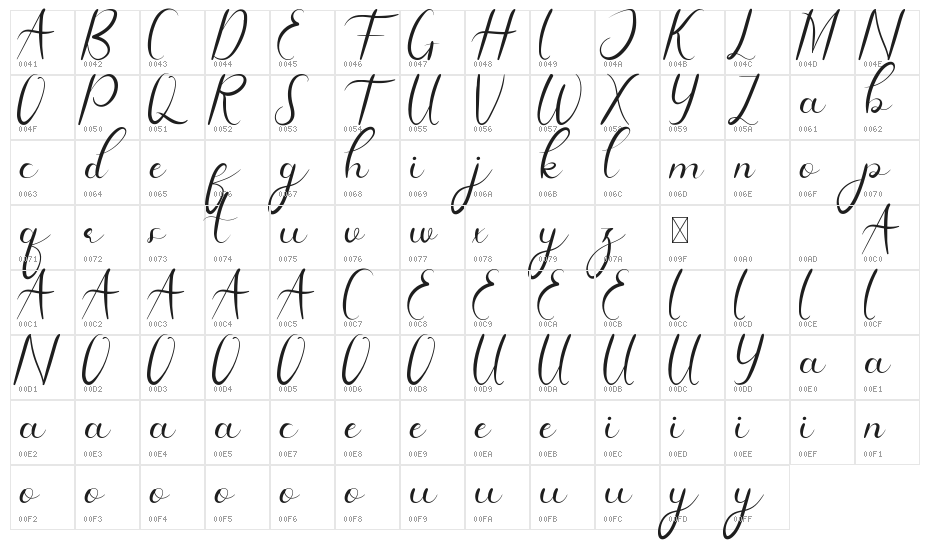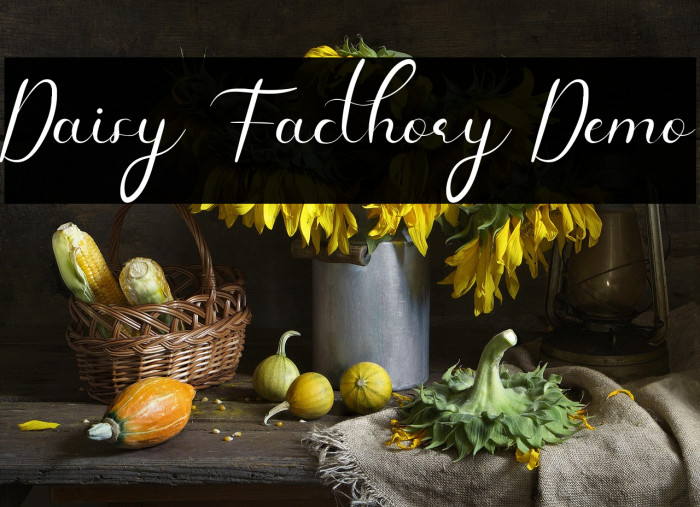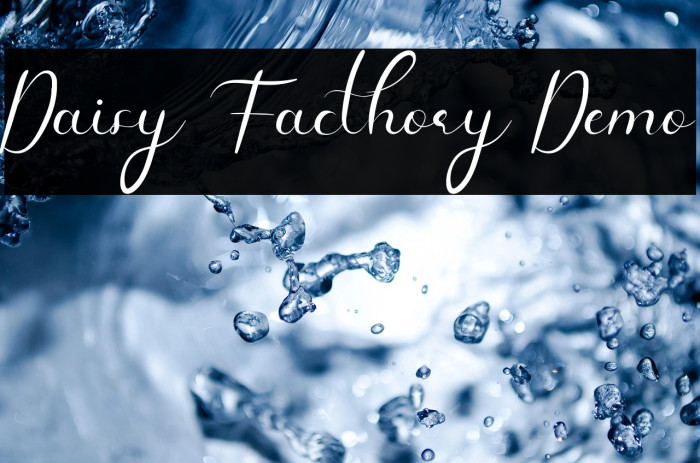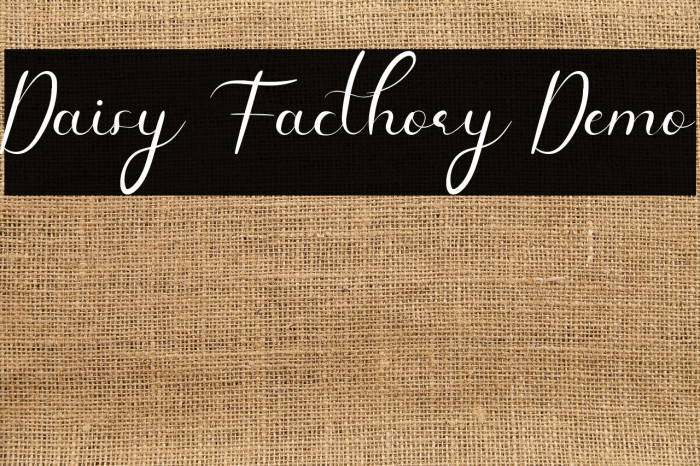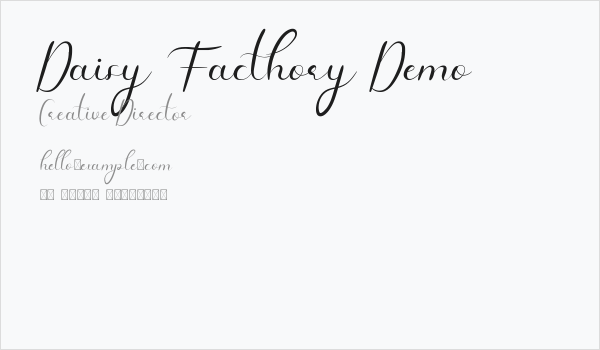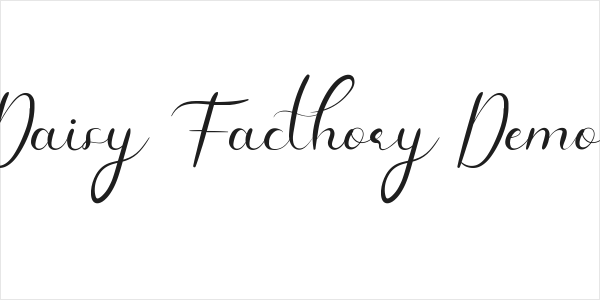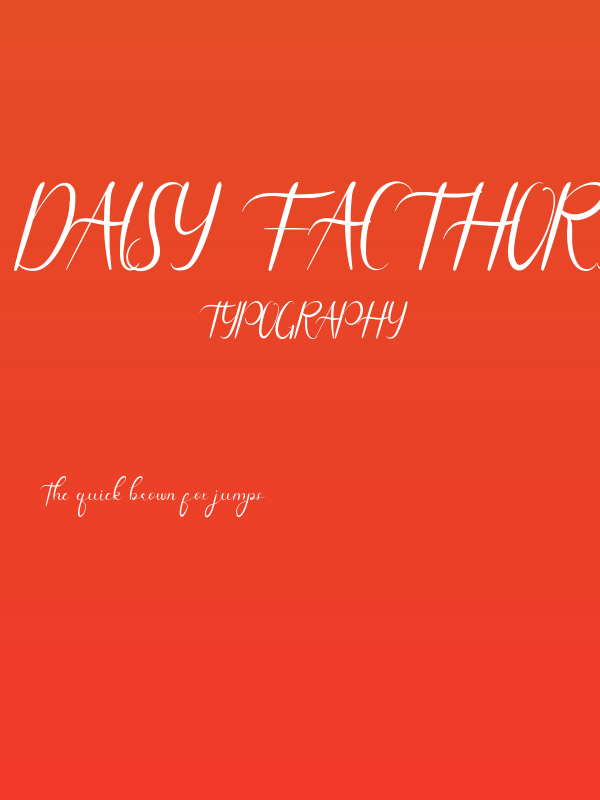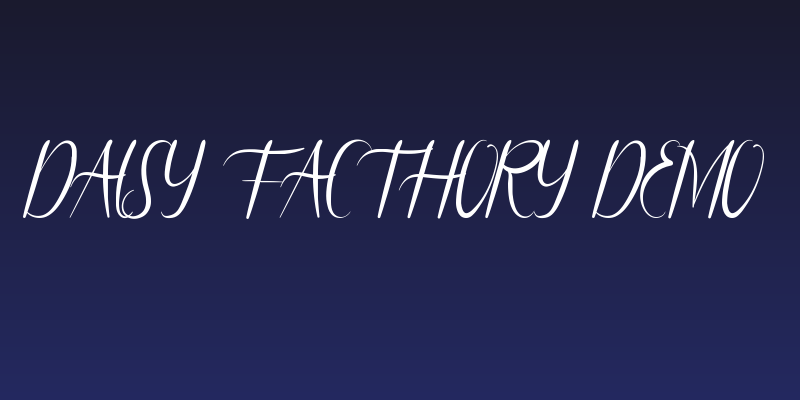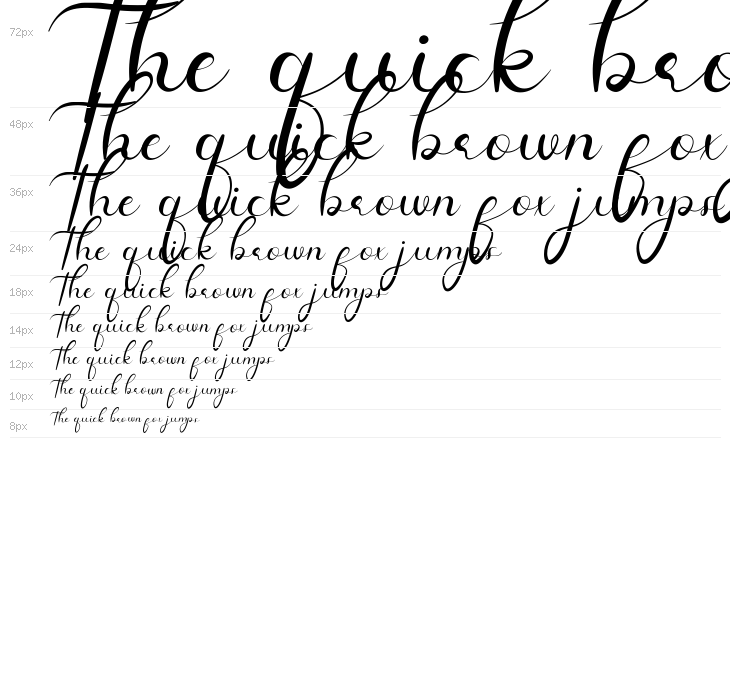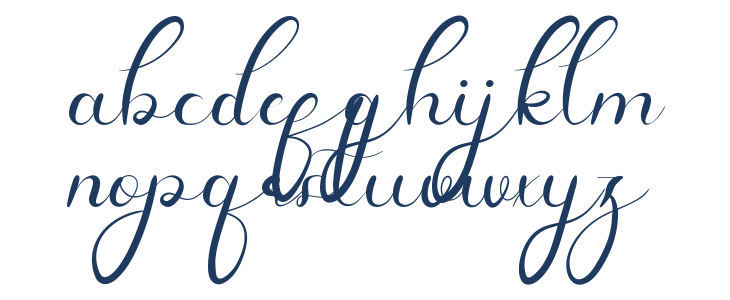
Daisy Facthory Demo Font
Daisy Facthory Demo Description
This elegant script font features a flowing, cursive style with high contrast between thick and thin strokes. The letters are interconnected, creating a seamless and fluid appearance. The uppercase letters are tall and graceful, with sweeping curves and loops that add a touch of sophistication. The lowercase letters maintain a consistent style, with delicate ascenders and descenders that enhance the font's overall elegance. The numerals and special characters are designed to match the script's aesthetic, ensuring a cohesive look across all text elements. This font is perfect for projects that require a touch of elegance and refinement.